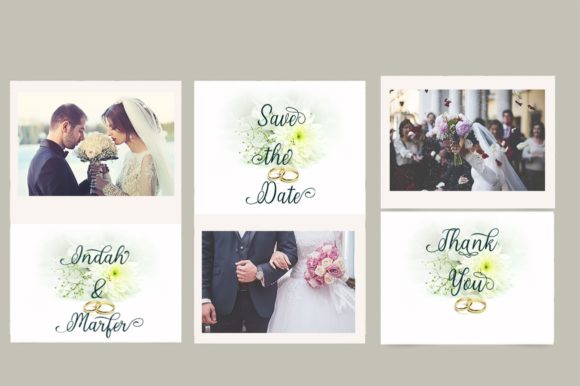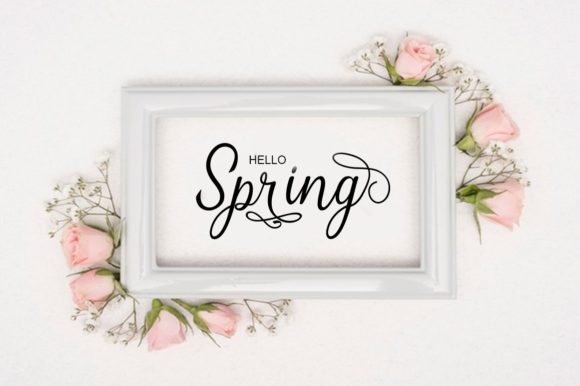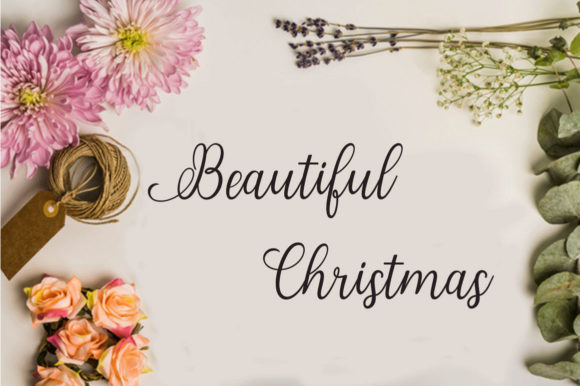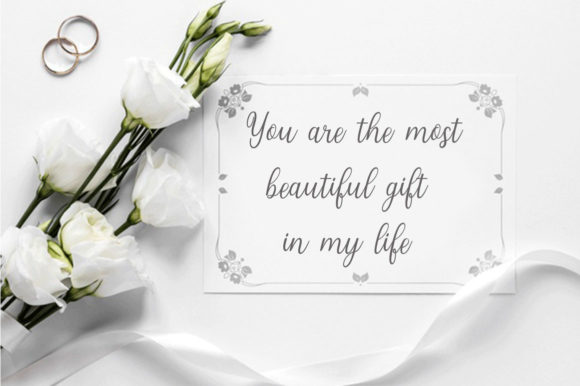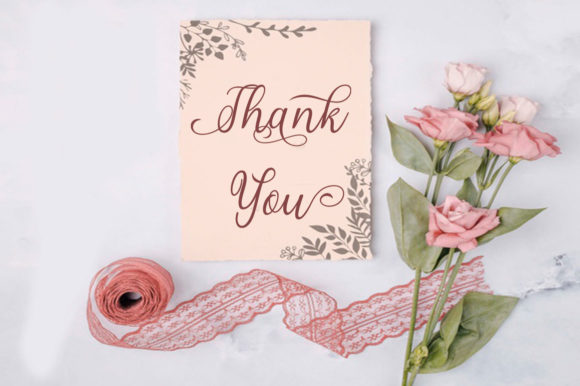
Unlock the Magic of Cahaya Font
Have you ever sat at your desk, staring at a blank canvas, waiting for inspiration to strike? That’s where the magic happens, and that’s exactly where Cahaya Font comes in. This delicate, elegant, and flowing handwritten font has a way of bringing your most creative ideas to life.
Cahaya Font is more than just a font – it’s a tool that helps designers tap into their full potential. With its beautiful and well-balanced characters, it’s the perfect addition to any design project. Whether you’re working on a wedding invitation, a logo, or a branding campaign, Cahaya Font is sure to elevate your work and make it stand out from the crowd.
Cahaya Font Key Features
- Font Size: The font family includes multiple weights and styles, ranging from 100 to 900, allowing for precise control over font size and emphasis.
- Resolution: Cahaya Font is designed to be scalable, making it suitable for use in various resolutions, from low-resolution displays to high-resolution printing.
- Unique Characteristics: The font features a unique blend of traditional and modern elements, with intricate details and subtle nuances that set it apart from other fonts.
- Language Support: Cahaya Font includes comprehensive language support, covering a wide range of languages, including Latin, Cyrillic, and Arabic scripts.
- Font Metrics: The font has been carefully crafted to ensure precise font metrics, ensuring accurate spacing and alignment in various text settings.
Cahaya Font Review
Overall, I have mixed feelings about the Cahaya font. While it’s a beautiful and elegant font, there are some limitations that hold it back from being truly exceptional.
- The Cahaya font is stunningly beautiful, with a unique and exotic feel that’s perfect for design projects that require a touch of elegance.
- The font is highly legible, even at small font sizes, making it ideal for use in body text or titles.
- The font is highly customizable, with a wide range of OpenType features and stylistic sets that allow designers to create a wide range of variations.
- The Cahaya font is a bit too ornate for some designs, and can feel overwhelming if used too liberally.
- The font lacks a clear, consistent weight system, making it difficult to use for headlines or titles that require a clear hierarchy.
- The font’s unique feel can be a bit too “on-the-nose” for some designs, and can feel like a gimmick if not used carefully.
In conclusion, the Cahaya font is a beautiful and elegant font that’s perfect for certain types of design projects. However, its limitations hold it back from being a truly versatile and reliable font. With some careful use and consideration, however, the Cahaya font can be a valuable addition to any designer’s toolkit.
Cahaya Font: A Practical Application Guide
Tips for Getting the Most Out of Cahaya
Experiment with different font sizes, colors, and styles to create a unique and eye-catching design.
Pair Cahaya with other fonts to create a harmonious and balanced design.
Cahaya is ideal for use in branding, logos, and marketing materials due to its modern and sleek design.
It’s also suitable for use in digital products, such as apps and websites, to create a clean and professional look.